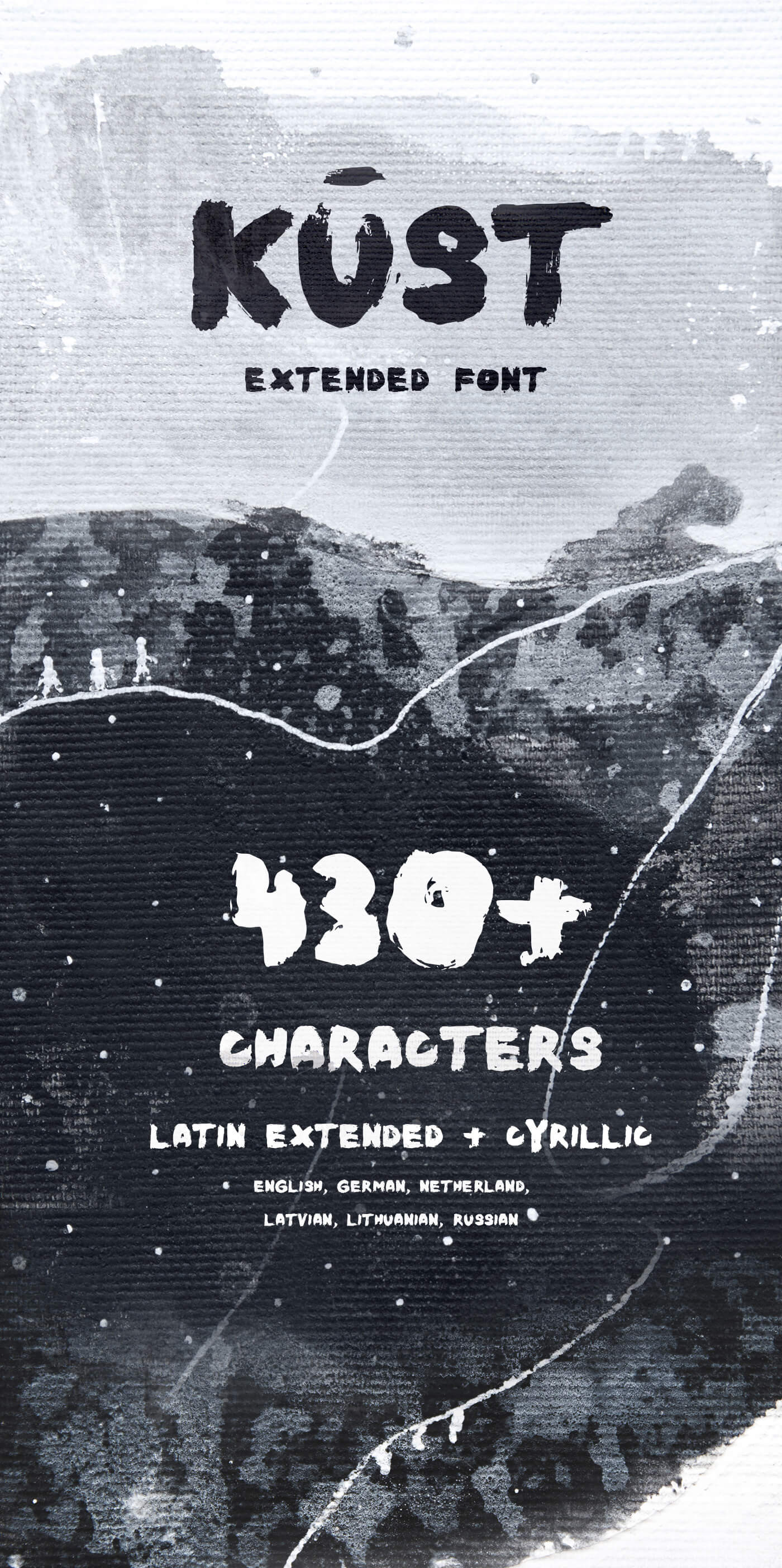
The all new and upgraded version of the already famous and widely known typeface Kust. Made by Ieva Mezule and Krisjanis Mezulis. Every letter has been chosen by carefully looking at how they all come together and combine the form of a open visual language. Additional letters have been made and now Kust has more than 430 characters and is also available as latin pro and cyrillic. The paintings featured in the presentation are made by Ieva Mezule.